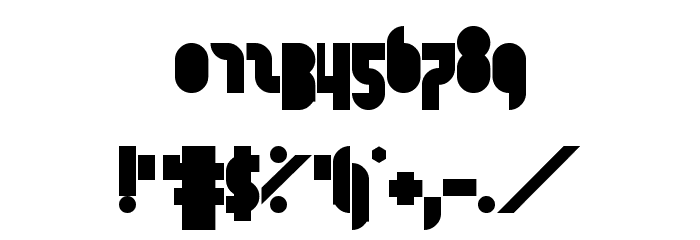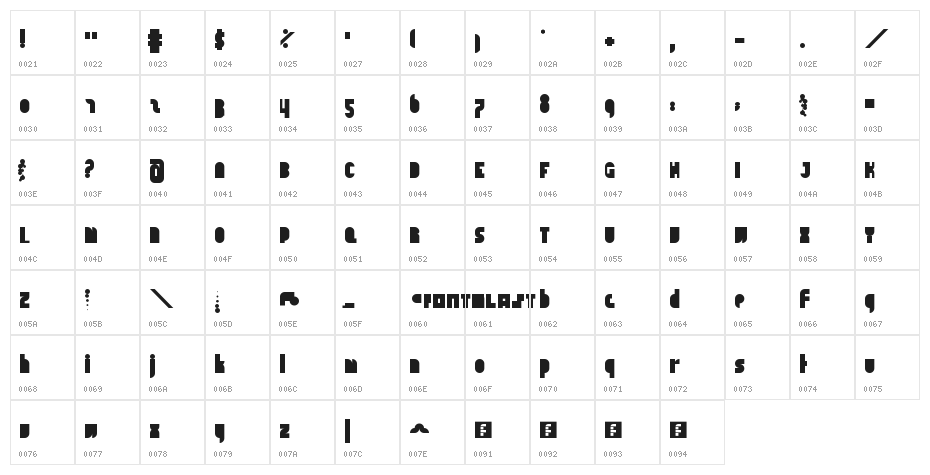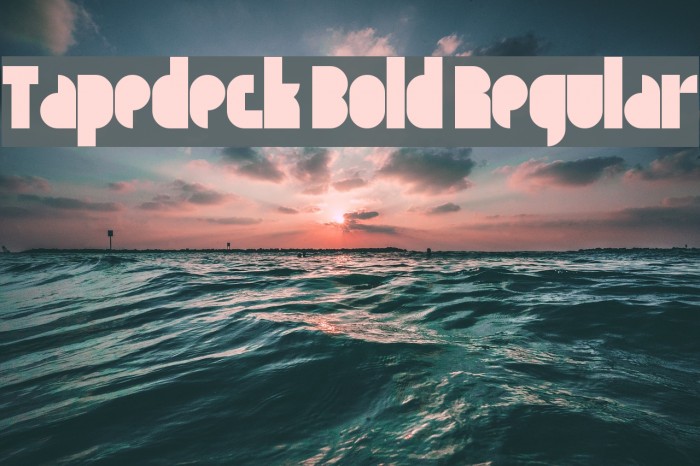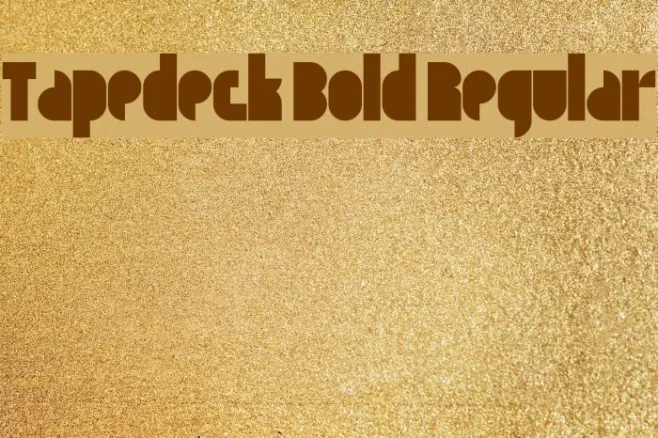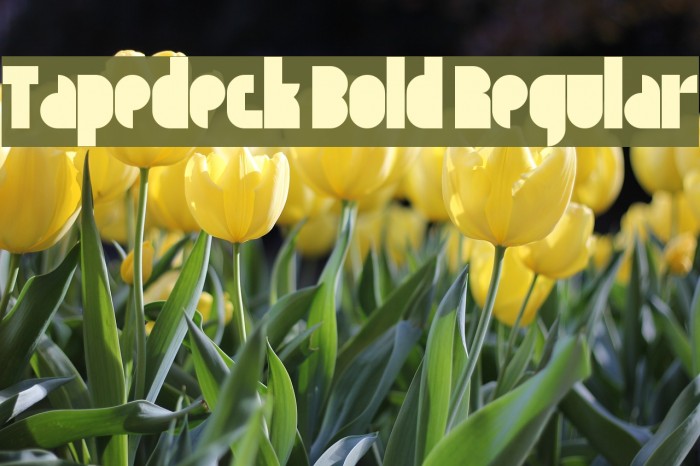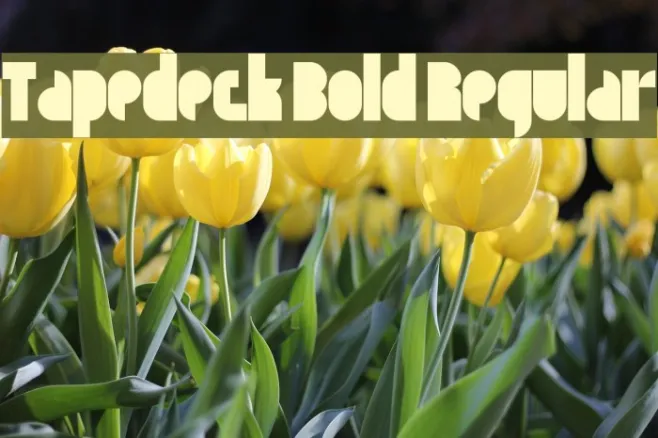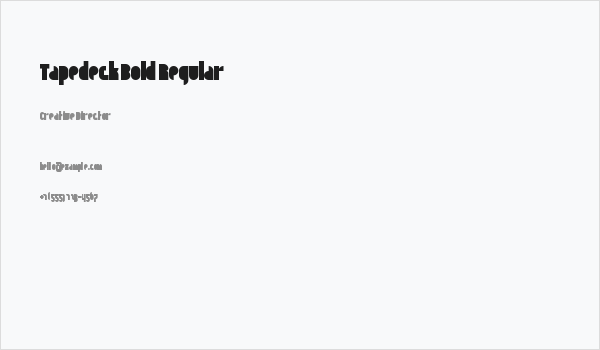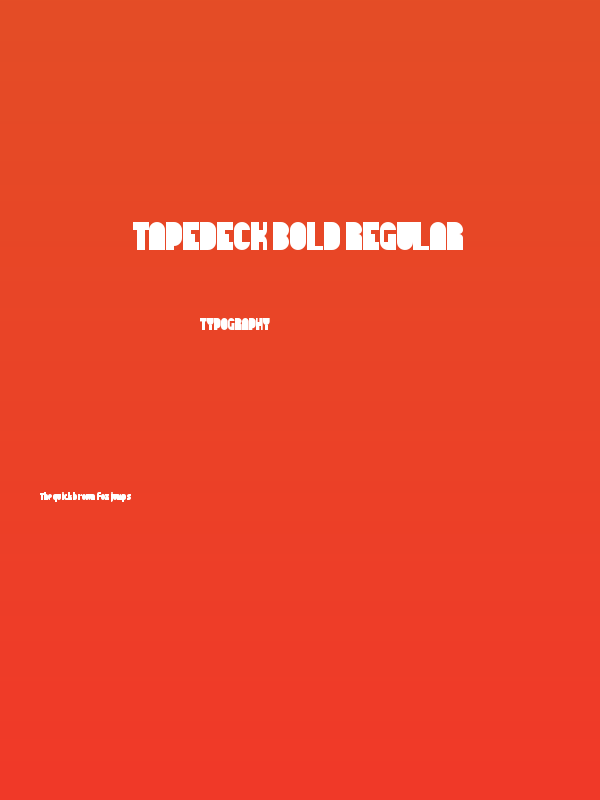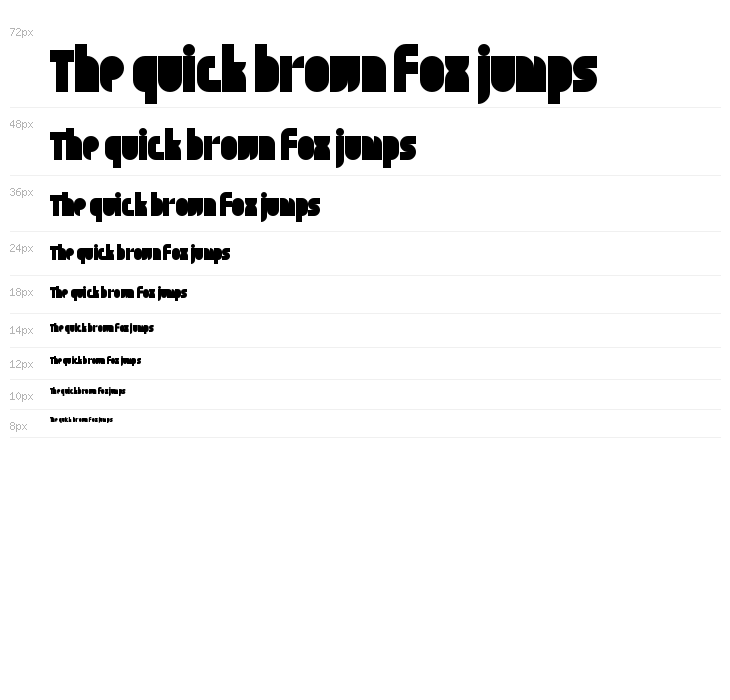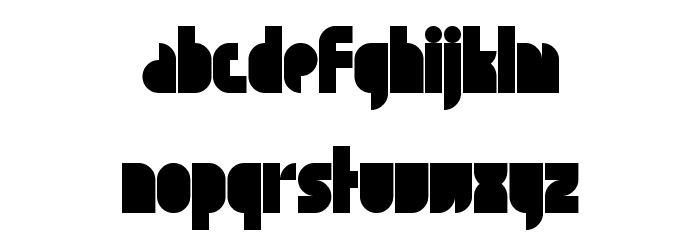
Tapedeck Bold Regular Font
Tapedeck Bold Regular Description
This font features a bold and geometric design, characterized by its thick, block-like letters with rounded edges. The uppercase and lowercase letters maintain a consistent weight, creating a cohesive and impactful appearance. The numbers and special characters follow the same bold style, ensuring uniformity across all glyphs. The font's unique style is reminiscent of retro and vintage aesthetics, making it suitable for projects that require a strong visual presence. Its distinct look is ideal for capturing attention and conveying a sense of boldness and confidence.
Overall StyleVintage
Proposed ProjectsIdeal for posters, album covers, branding, and any design needing a bold, retro feel.